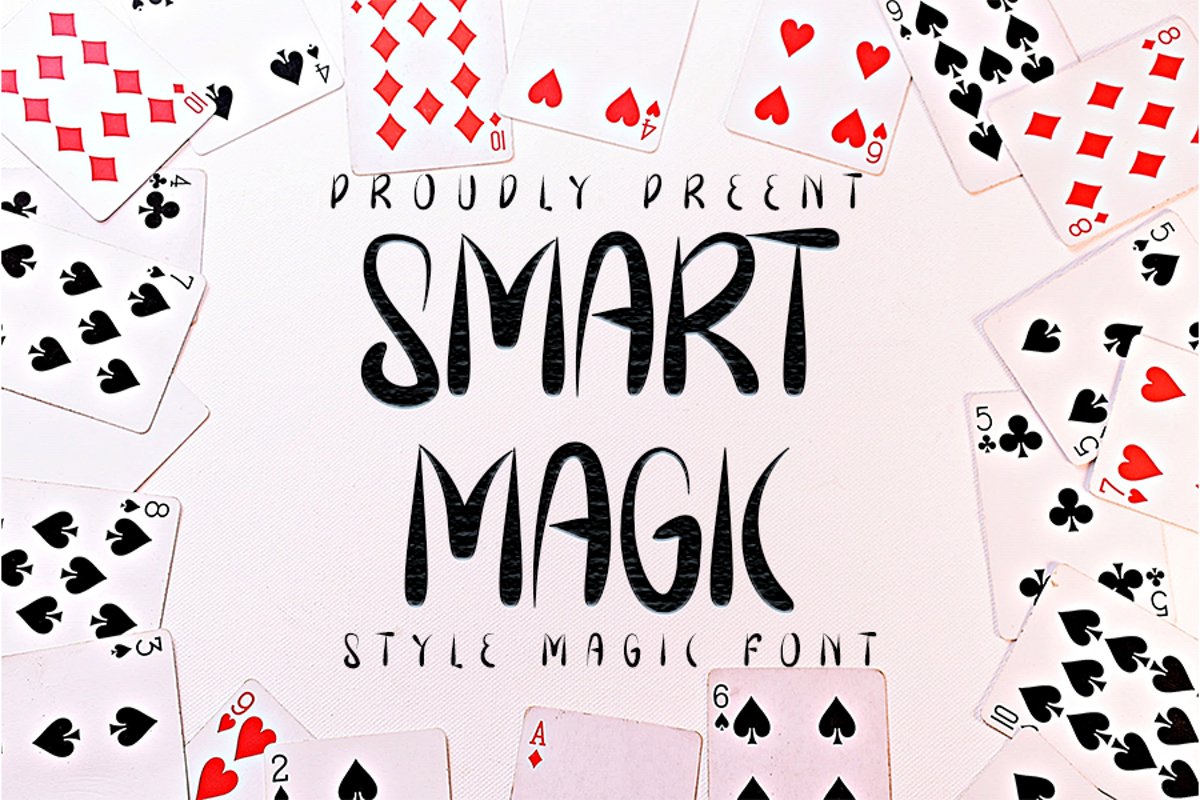
Smart Magic
Smart Magic is a unique and a bit quirky handwritten font. This playful font with its neat letter arrangement will look truly outstanding in a wide range of contexts.